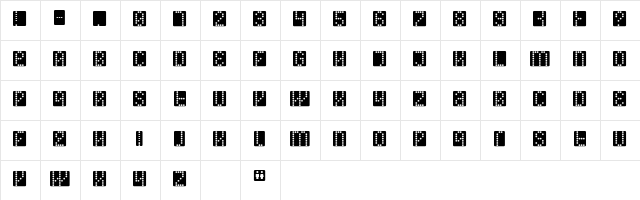
Digitalis Bold
Design Context for Digitalis Typeface
Digitalis has a distinctly futuristic character, with geometric precision and clean angles that feel at home in technology, gaming, and sci-fi contexts. Its bold stroke weight gives it real presence on the page.
Pro Tip: Try Digitalis with generous letter-spacing in UI labels and navigation — the geometric forms benefit from room to breathe.